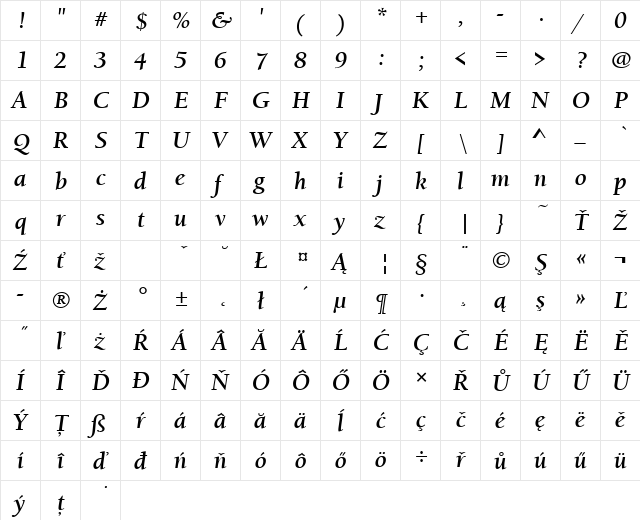
BerkeleyOldStyItcTEE Bold Italic Font Preview
Design Context for BerkeleyOldStyItcTEE Typeface
BerkeleyOldStyItcTEE takes a measured approach to typography — its balanced proportions and neutral character make it a reliable workhorse for both digital and print work. Its italic angle brings a sense of urgency and motion to the letterforms. The heavy weight commands attention and anchors typographic hierarchies.